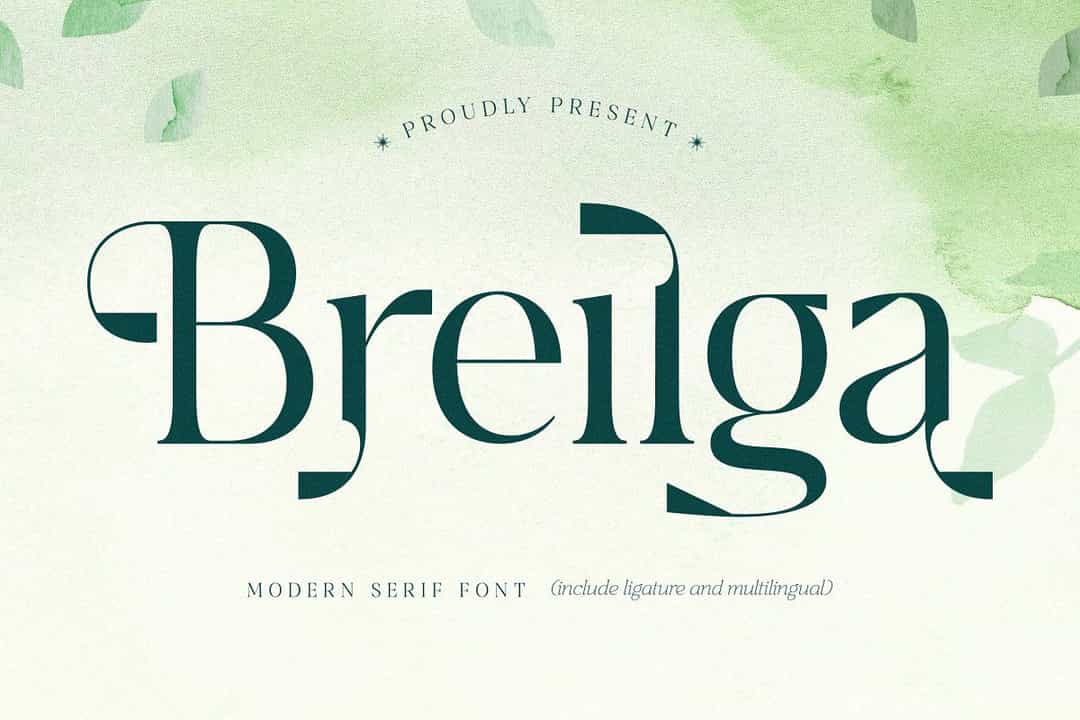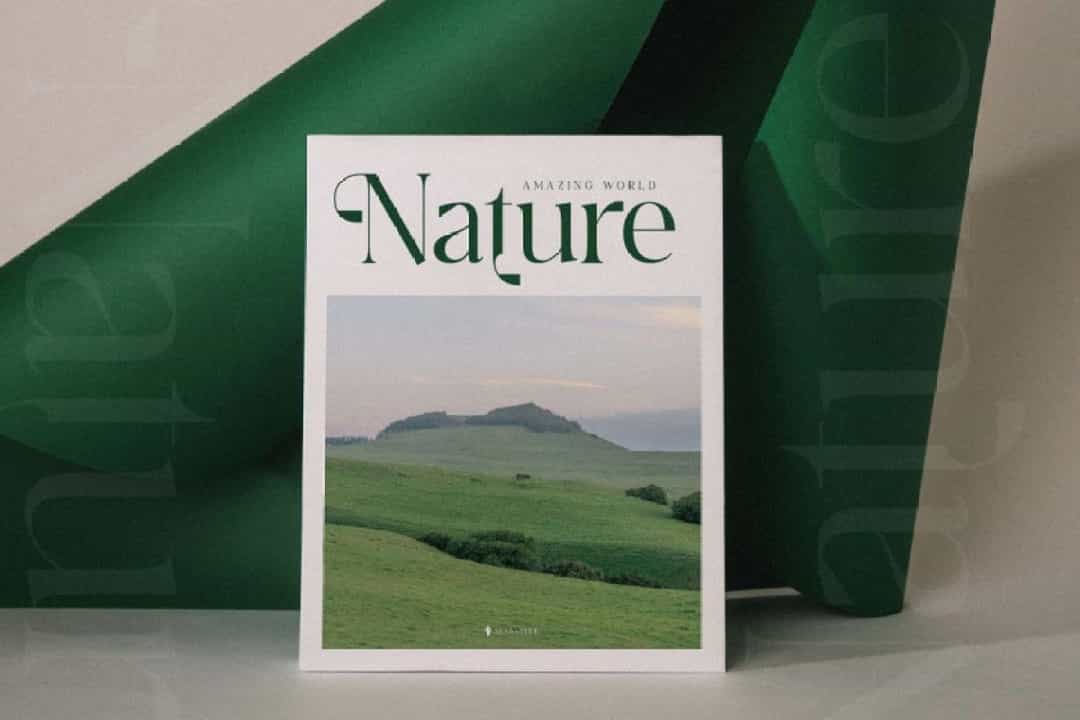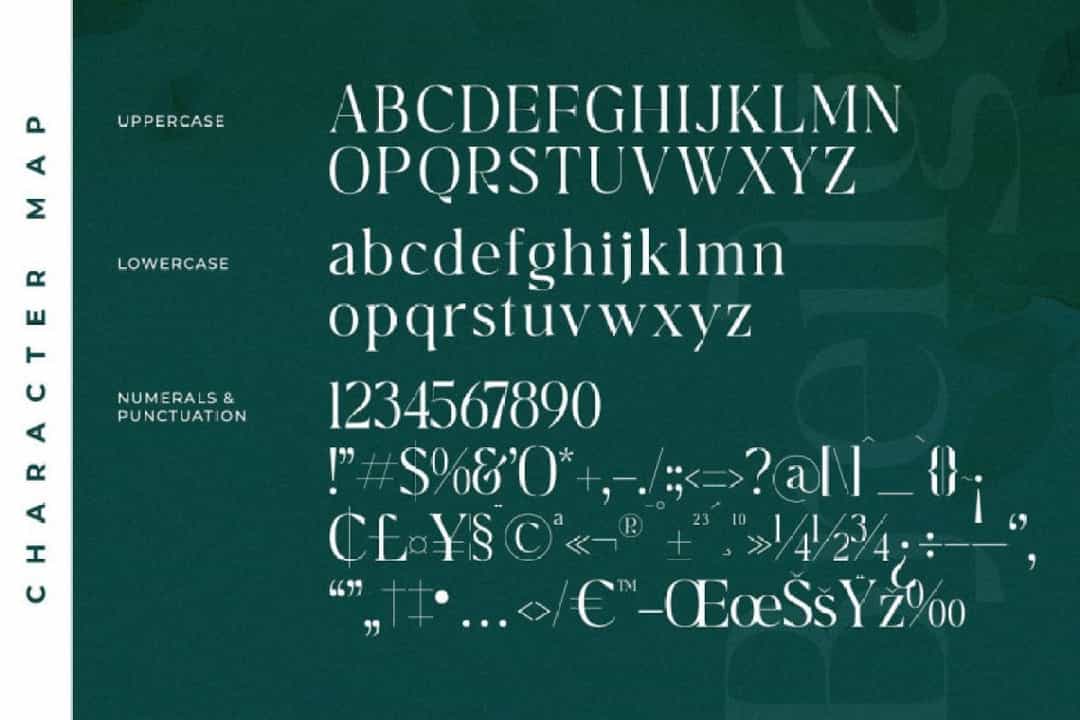
Breilga is an elegant and contemporary serif typeface, ideal for creating stylish logos, book or film styles, fashion label clothing labels, magazines letters and quotes in addition to many other uses. This typeface offers its users the perfect canvas on which to build classy and sophisticated logos or create classy and elegant clothing labels with its distinct style and appearance. This typeface provides endless opportunities to make an impactful statement!